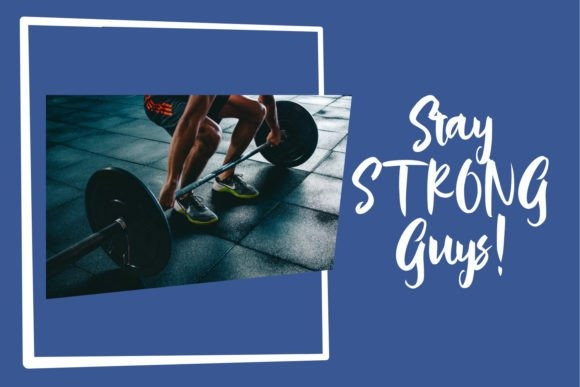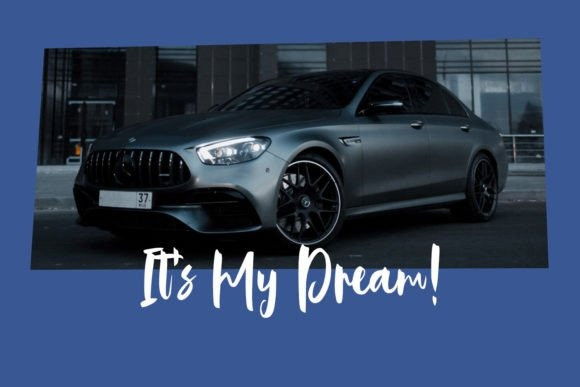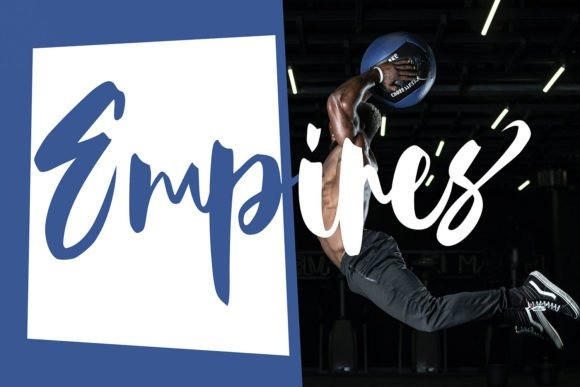
Empires Script Typeface
Empires Script Font, is a handrawn upright script brush font, suitable for any project such as logos, branding projects, homewares designs, product packaging, mugs, quotes, posters, shopping bags, t-shirts, book covers, business cards, invitation cards , greeting cards, labels, photography, watermarks, special events, and all your other luxury projects that call for a premium signature feel.